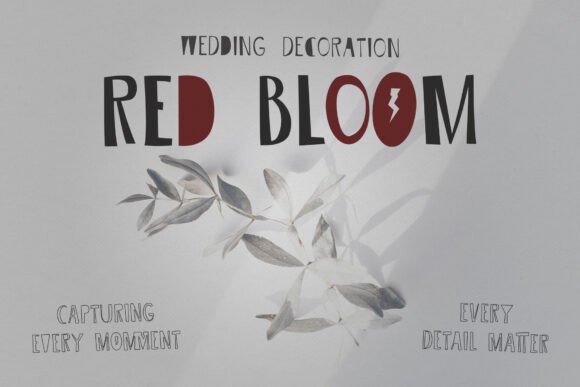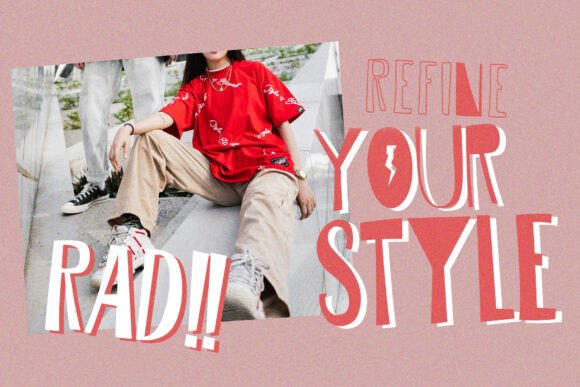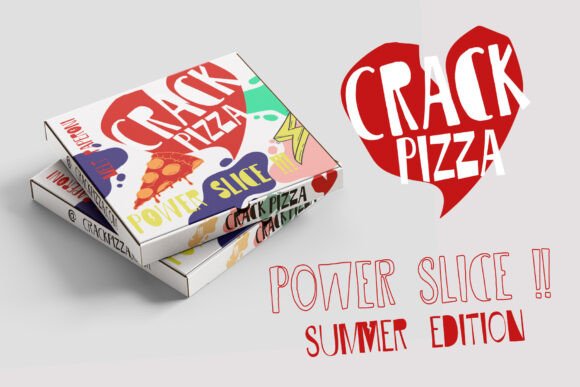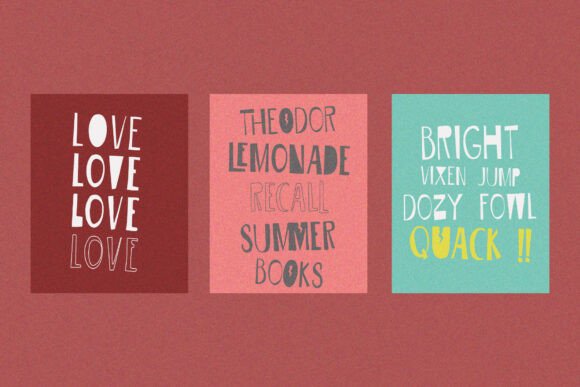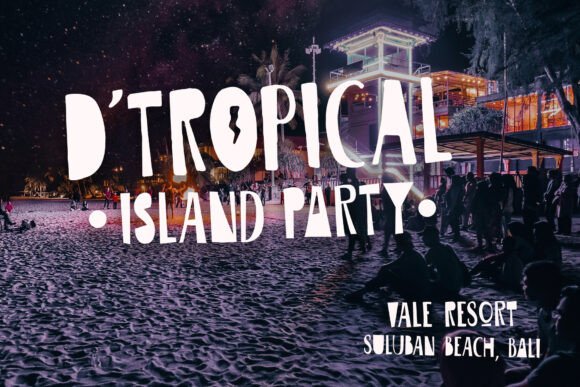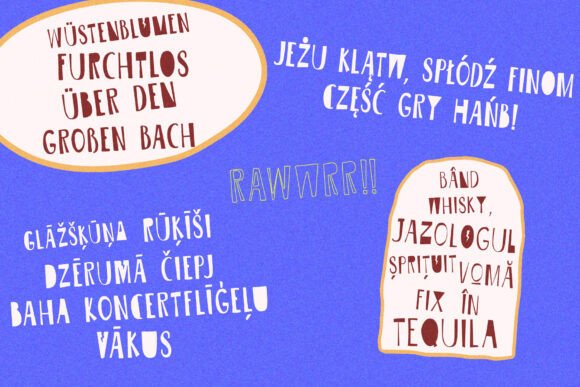
Introduction to Saymour Font
Have you ever been in the midst of a creative project, pouring your heart and soul into a design, only to feel like something’s missing? That’s where the Saymour Font comes in – a high-quality, quirky handwritten font that brings a unique touch to any design. Its hand-drawn irregularities and distinctive character shapes give it a warm, casual tone that feels both modern and organic.
Whether you’re working on a branding project, crafting a poster, or creating editorial content, Saymour Font is a valuable resource for designers. With four unique styles – Regular, Rough, Thin, and Outline – it offers a versatile toolkit for achieving a clean or rugged look. Plus, with a transparent background, you can easily layer your design elements and add a professional touch.
Key Features of Saymour Font
- High-quality typography with a transparent background, perfect for creative projects and designs.
- Unique, hand-crafted design with a modern and elegant feel, ideal for use in logos, branding, and advertising materials.
- Supports a wide range of languages, making it a versatile design resource for global creative projects.
Honest Review: Saymour Font
What works well is the Saymour Font’s versatility. I love how it comes in various weights and styles, making it perfect for a range of creative projects, from corporate branding to editorial design. The font’s modern aesthetic and clean lines make it an excellent choice for digital and print design. The transparent background feature is also a great touch, allowing for seamless integration with any design element.
- ✨ High-quality design with crisp lines and smooth curves
- ✨ Wide range of weights and styles for versatility
- ✨ Transparent background for easy integration
However, there are some limitations to consider. The Saymour Font is not suitable for projects that require a more rustic or vintage look. Additionally, the font may not be as effective in smaller text sizes, where the letterforms can become slightly blurry.
Overall, I’m impressed with the Saymour Font’s design and functionality. While it may not be perfect for every project, it’s an excellent addition to any designer’s toolkit, especially for those looking for a high-quality, modern font.
Tips for Getting the Most Out of Saymour Font
For optimal results, use Saymour Font in conjunction with a high-quality image or background to create a visually appealing design. You can also experiment with different font sizes and colors to achieve a unique look. Saymour Font is a versatile design resource that can be used for a variety of creative projects, from business cards to social media graphics.